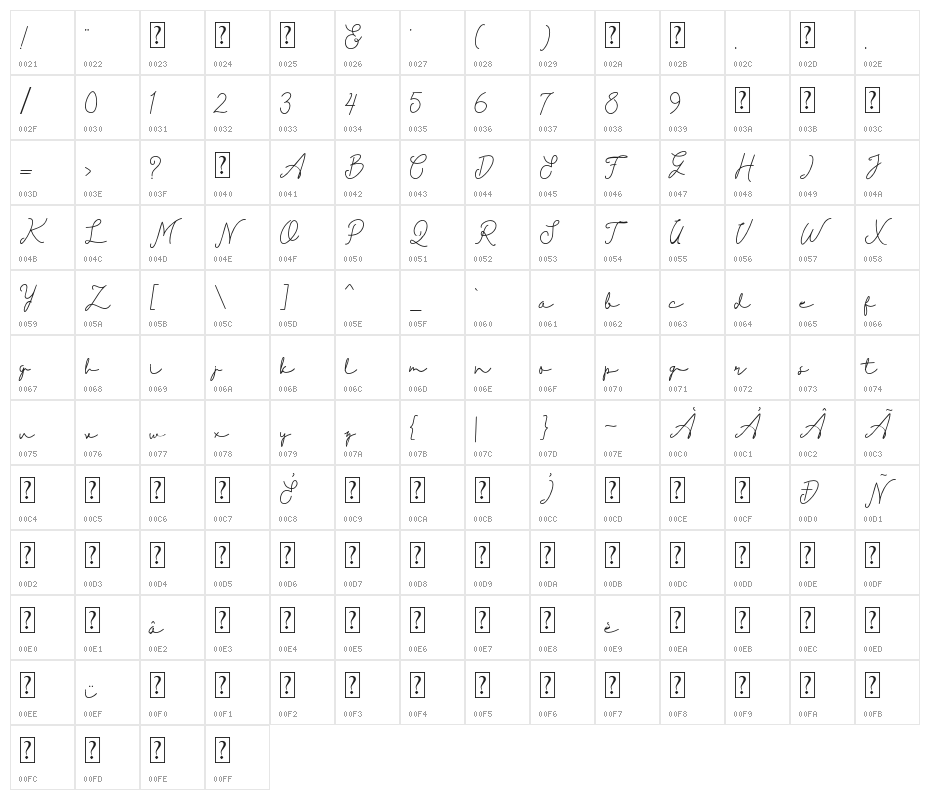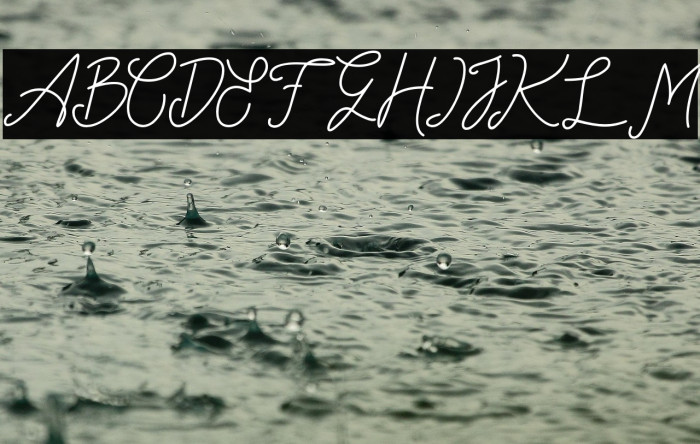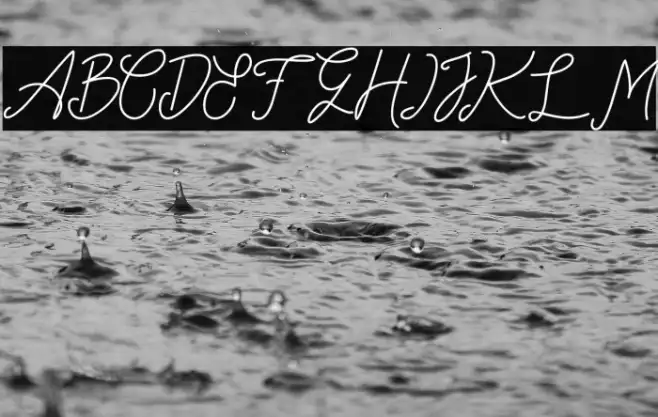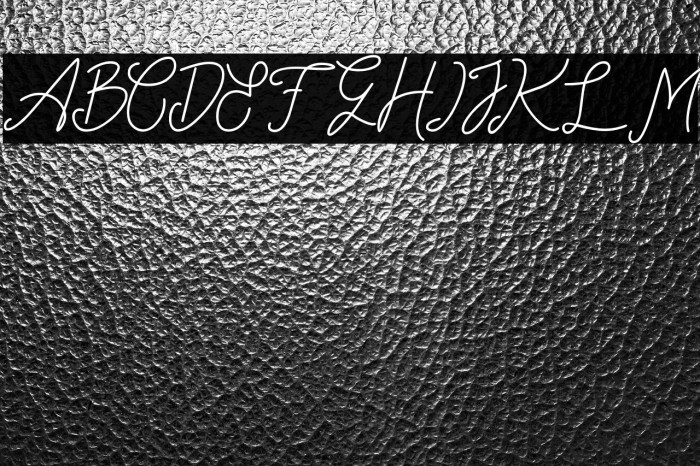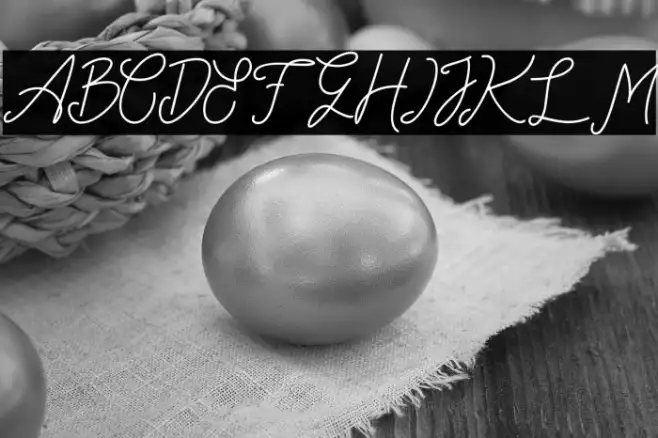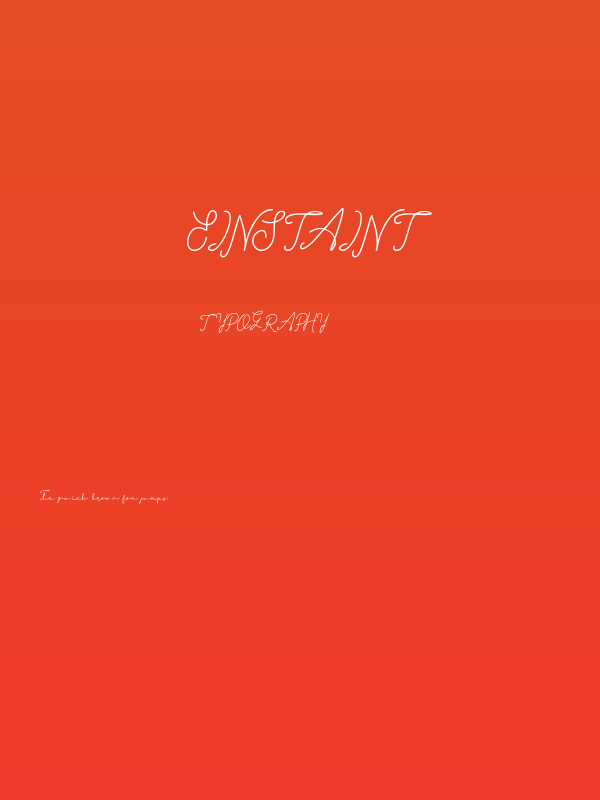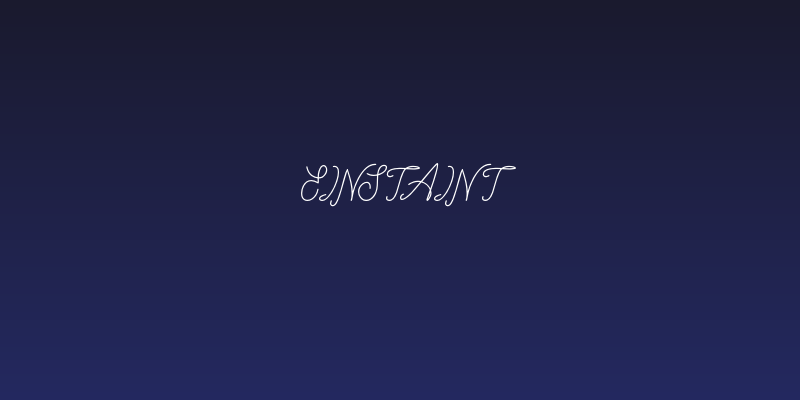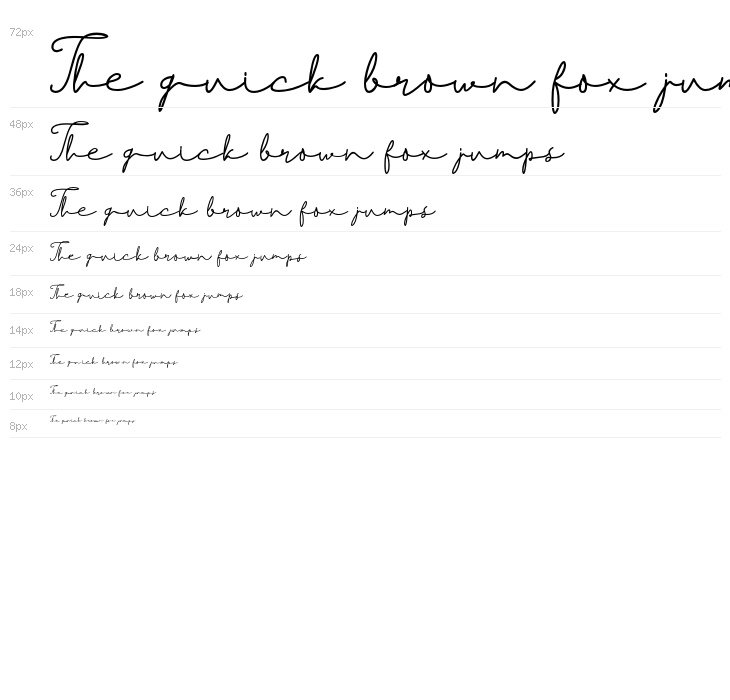
Einstaint Font
Einstaint Description
This elegant script font features fluid, connected strokes that emulate the natural flow of handwriting. The uppercase letters are gracefully elongated, with smooth curves and loops that add a touch of sophistication. Lowercase letters maintain a consistent style, with gentle slants and rounded forms that enhance readability. The numerals are distinct and stylish, complementing the overall aesthetic. Special characters are thoughtfully designed, integrating seamlessly with the rest of the font. This font exudes a sense of elegance and personal touch, making it ideal for projects that require a handwritten feel.
Overall StyleElegant, Handwritten
Use CaseLogos, Invitations, Personal Branding
Proposed ProjectsIdeal for wedding invitations, greeting cards, personal branding, and elegant stationery.